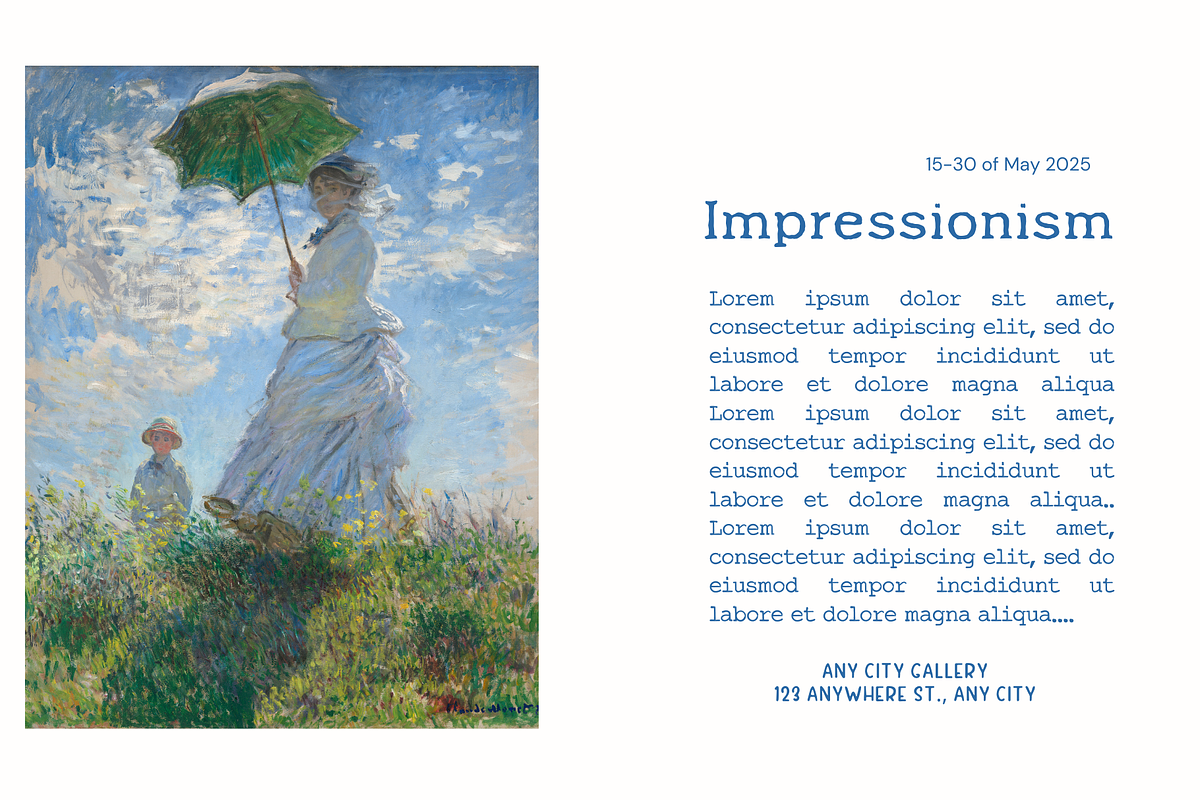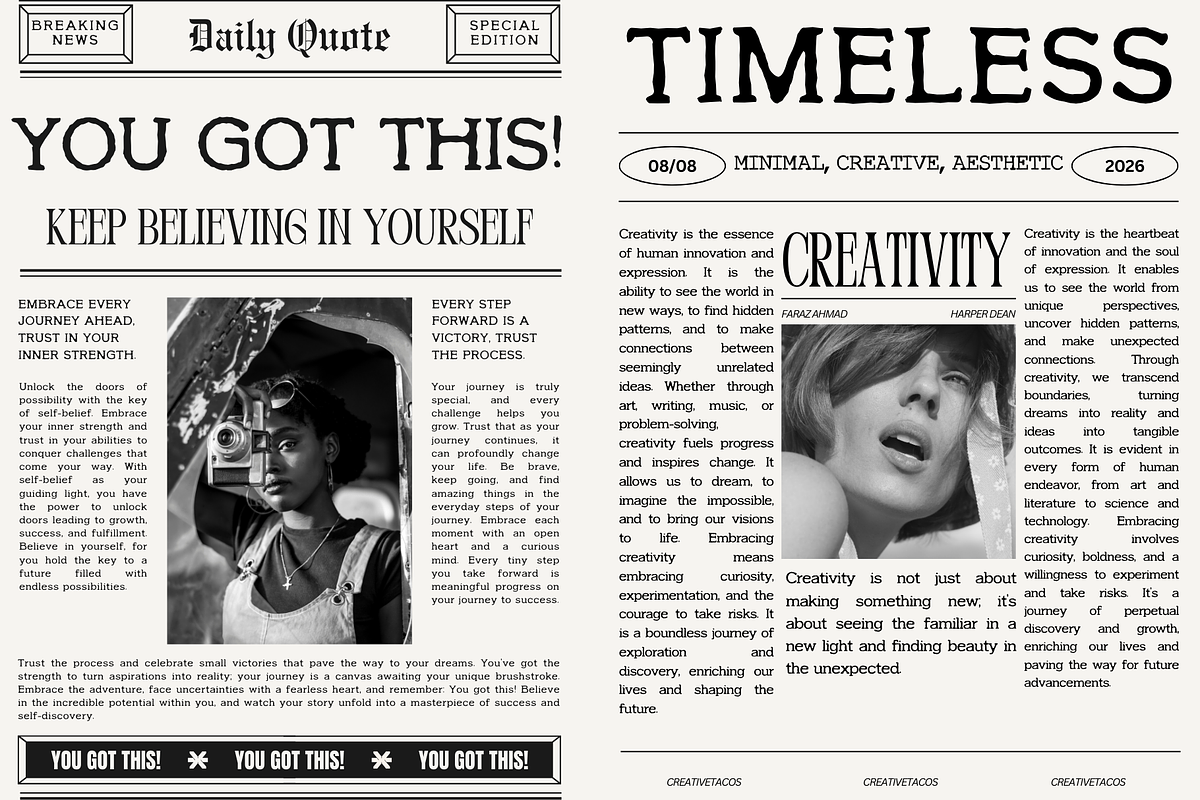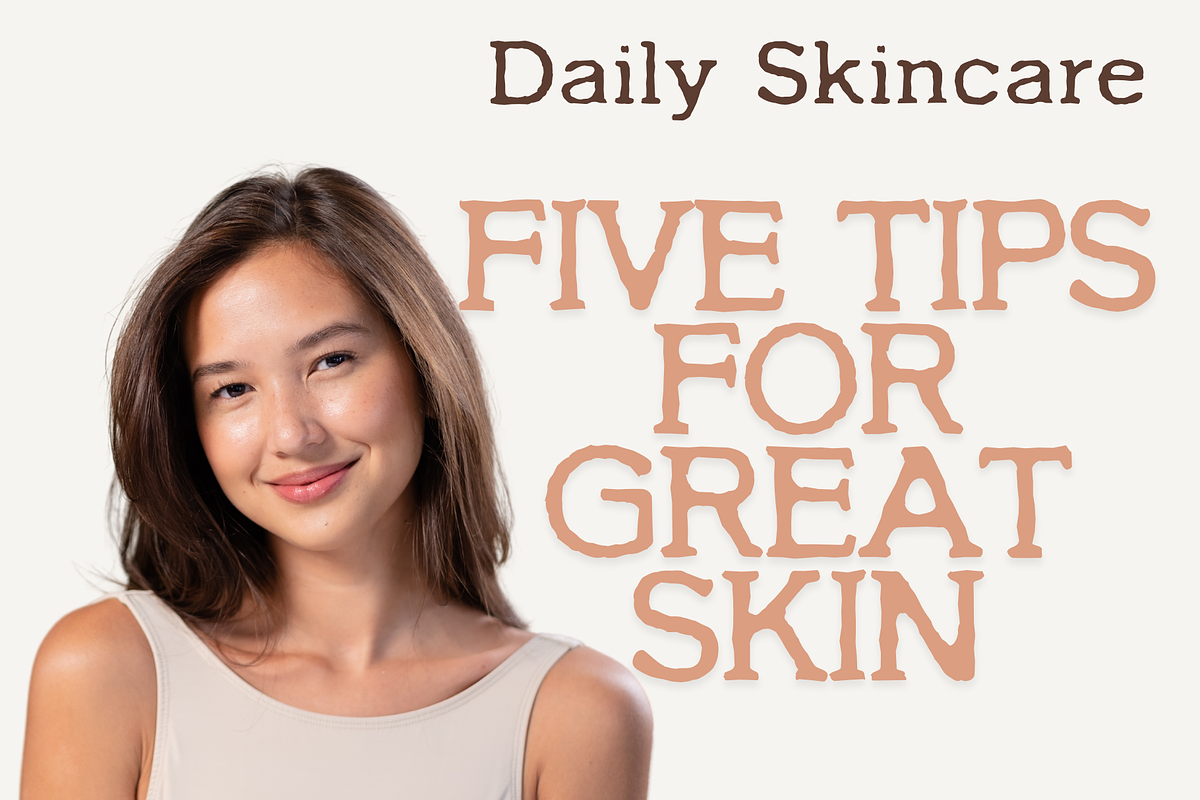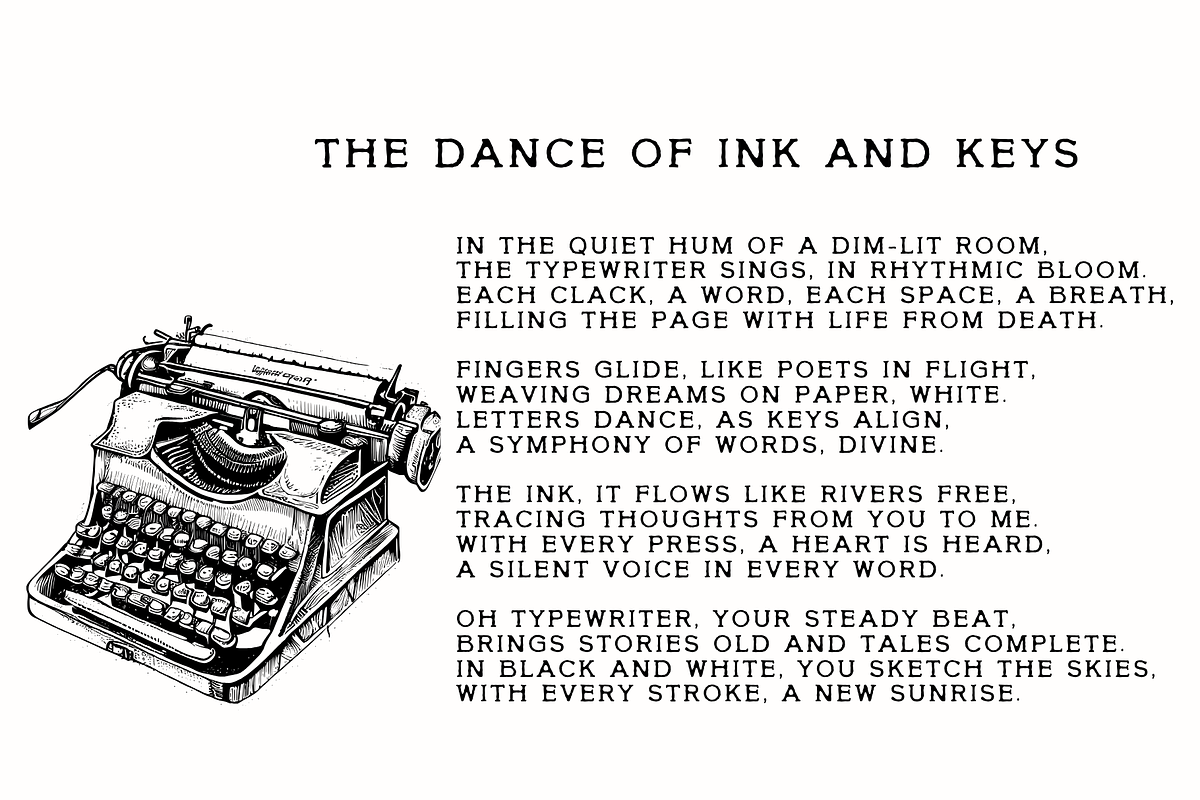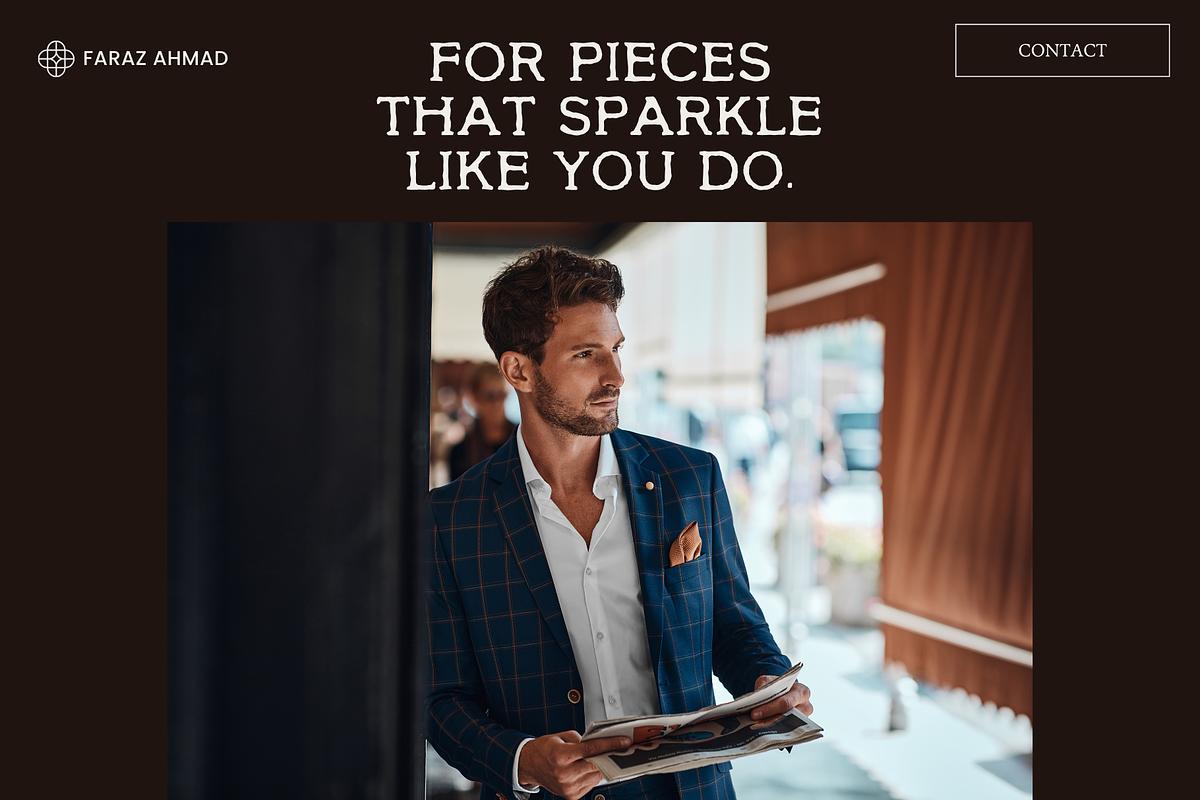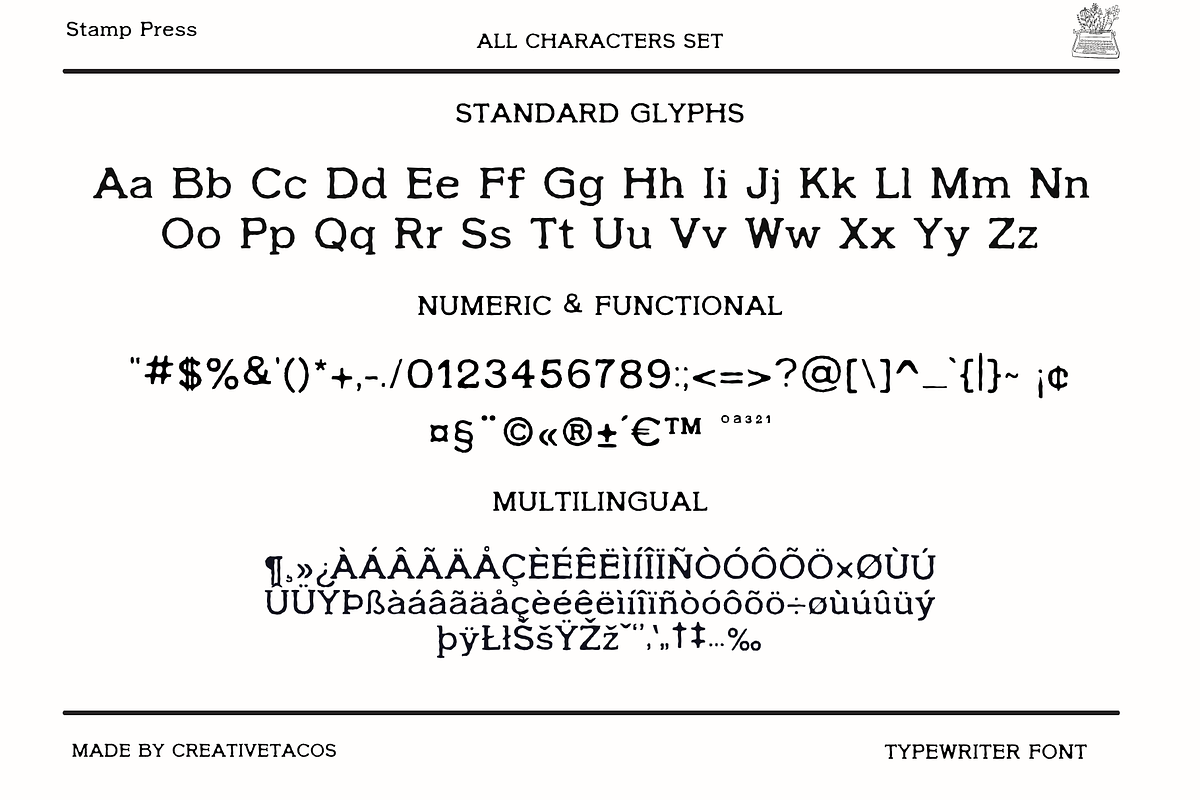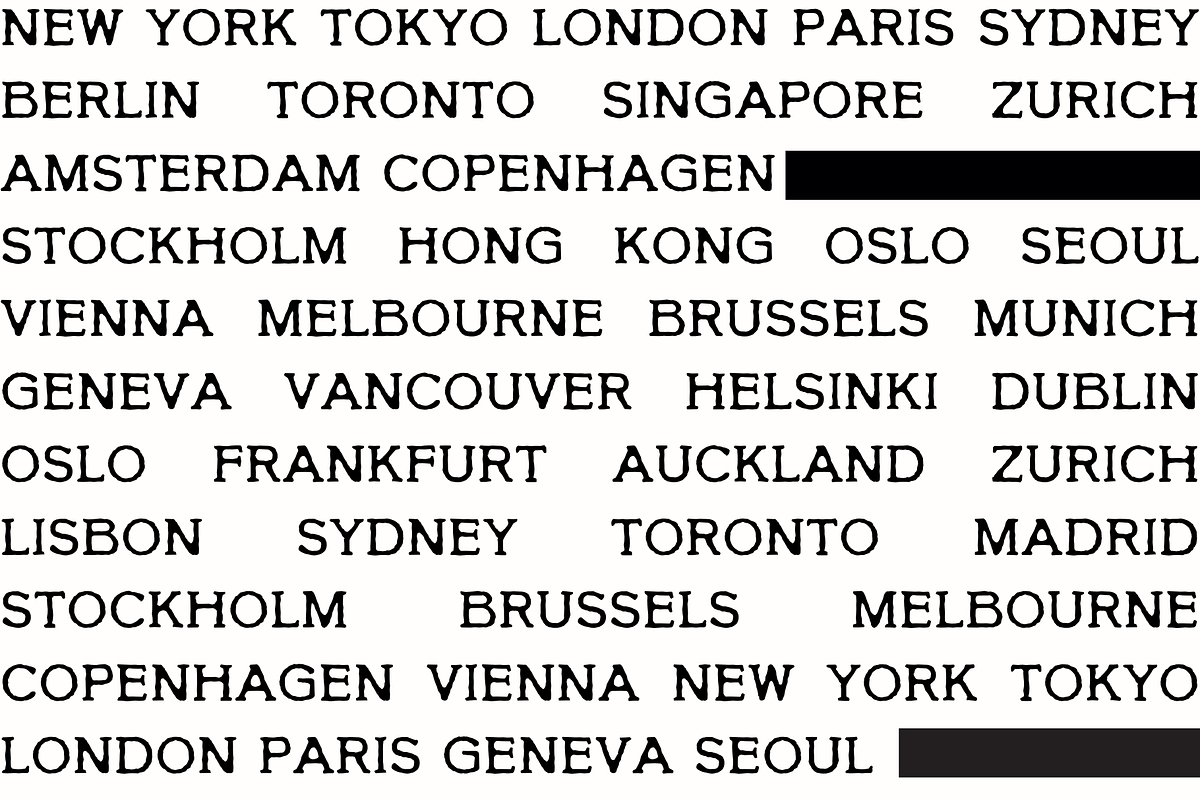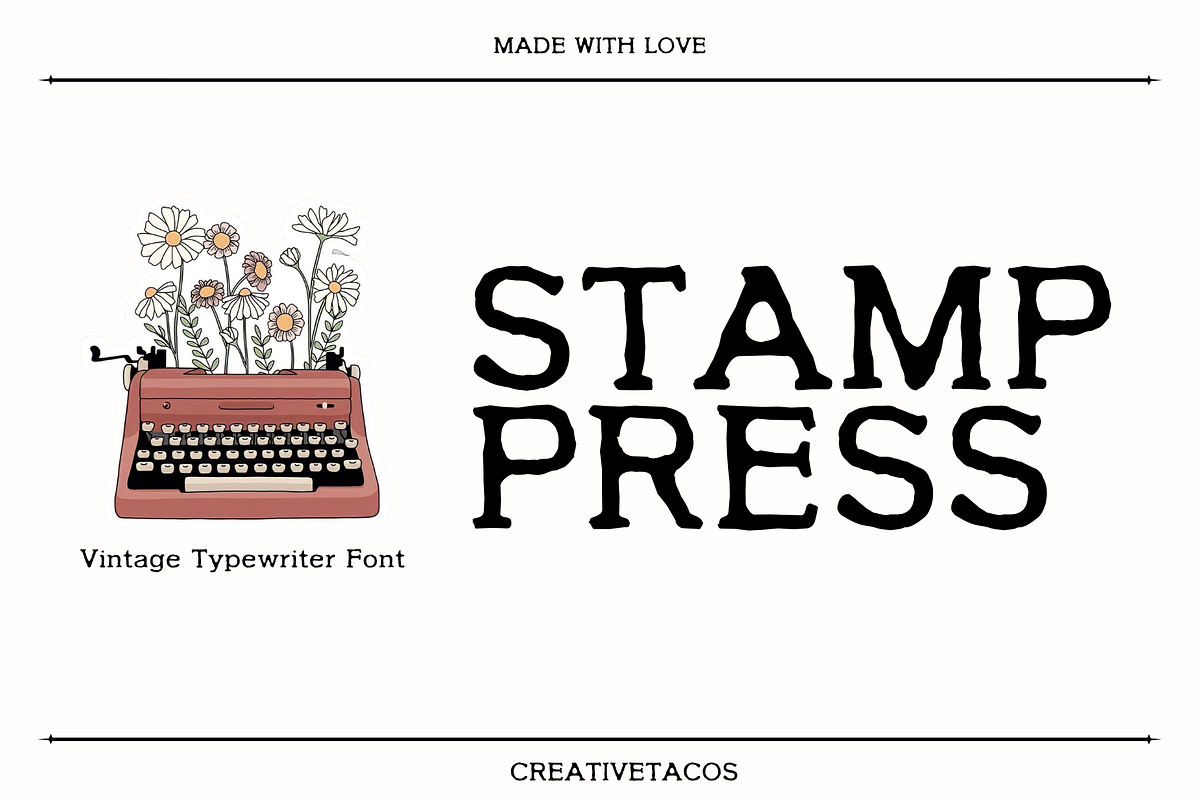
Stamp Press - Retro Typewriter Font
Stamp Press is a beautifully crafted vintage typewriter font that brings the charm of retro type to modern projects. With its rough edges and imperfect letters, it mimics the authentic look of an old-fashioned typewriter. Whether you’re working on branding, logos, posters, invitations, or editorial designs, Stamp Press adds that nostalgic touch you’re looking for.
- Branding that needs a unique, retro feel
- Posters with a nostalgic, vintage touch
- Invitations that stand out with a creative typeface
- Editorial layouts with a timeless, typewriter-style font
- Logos that require a memorable, handcrafted look